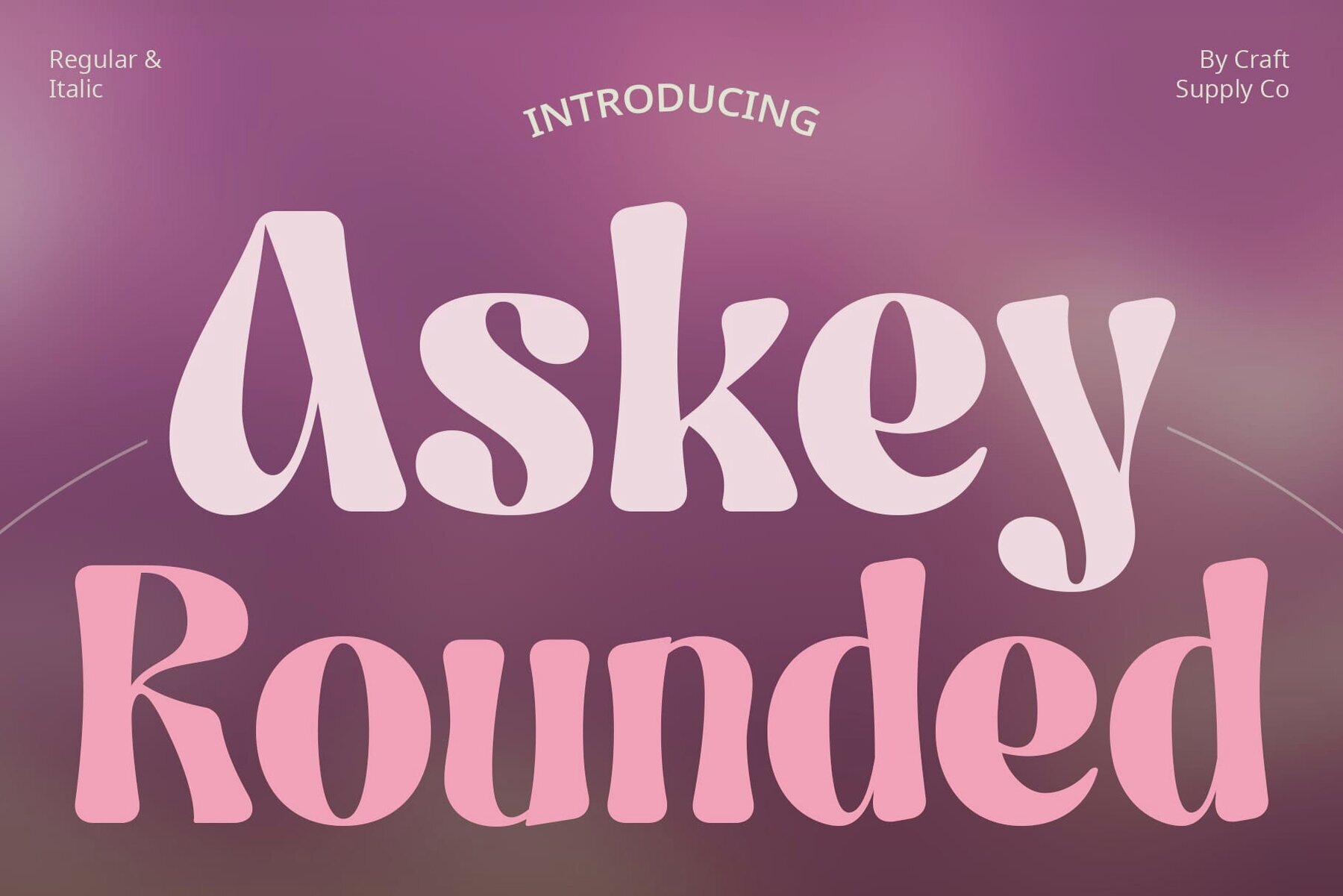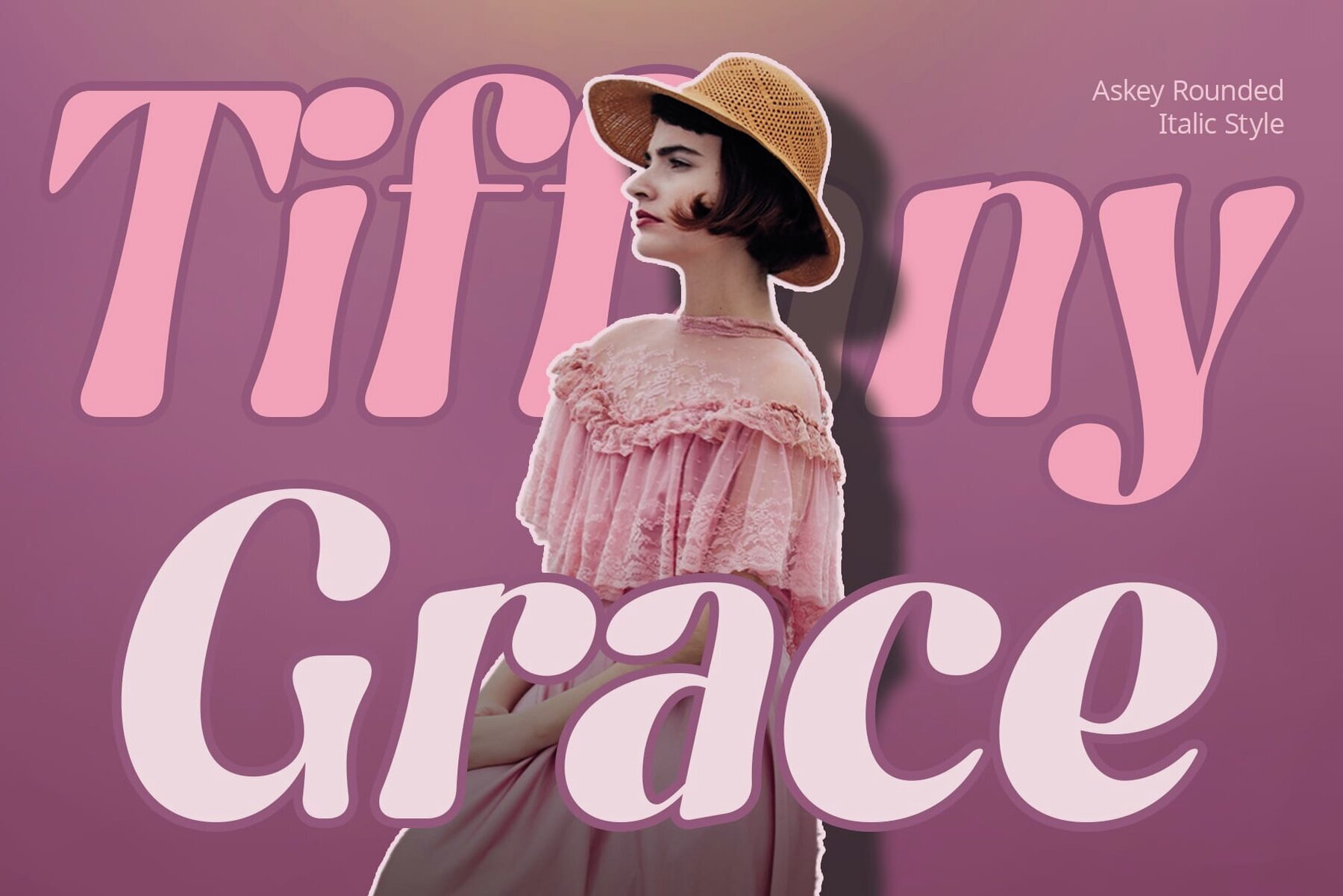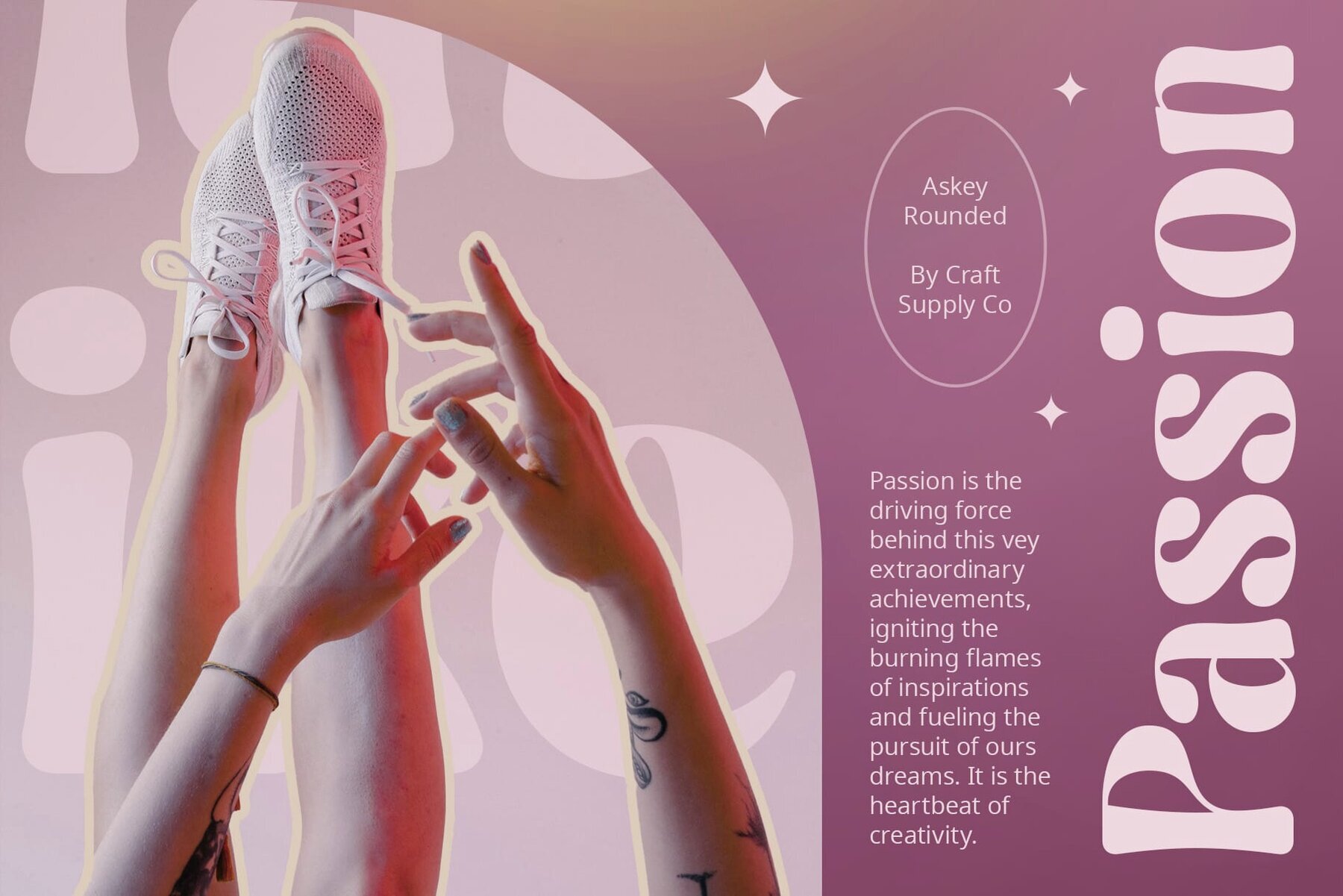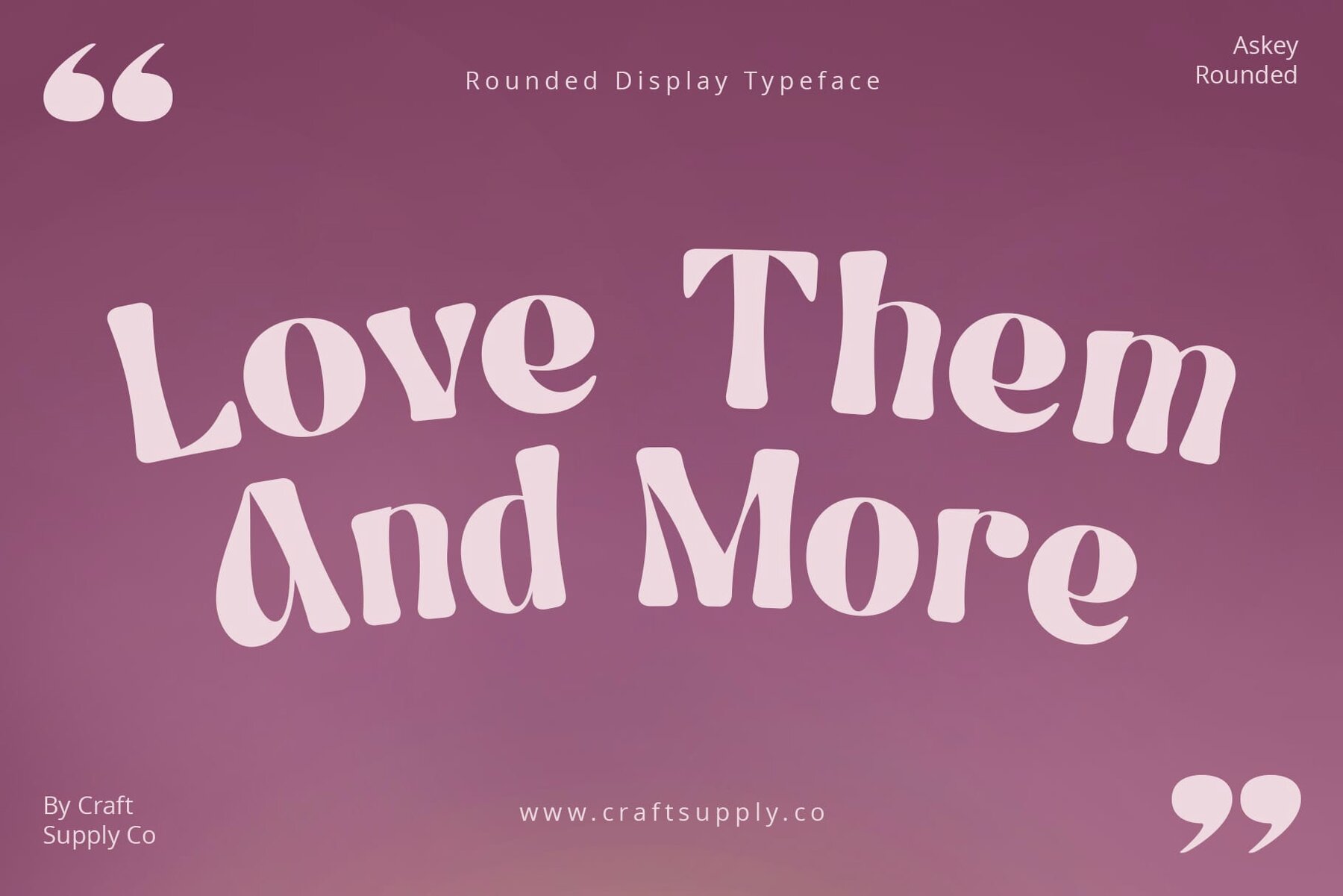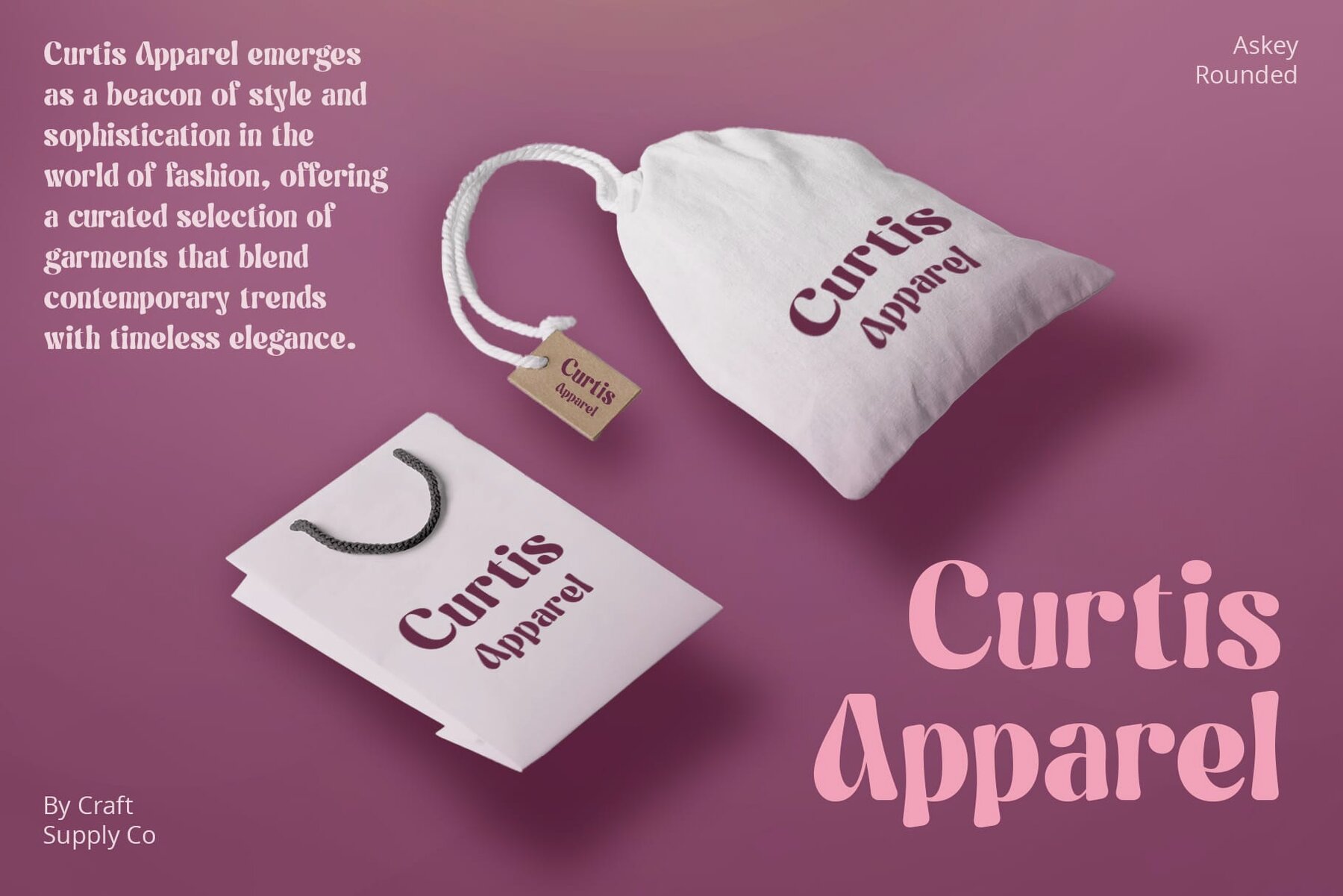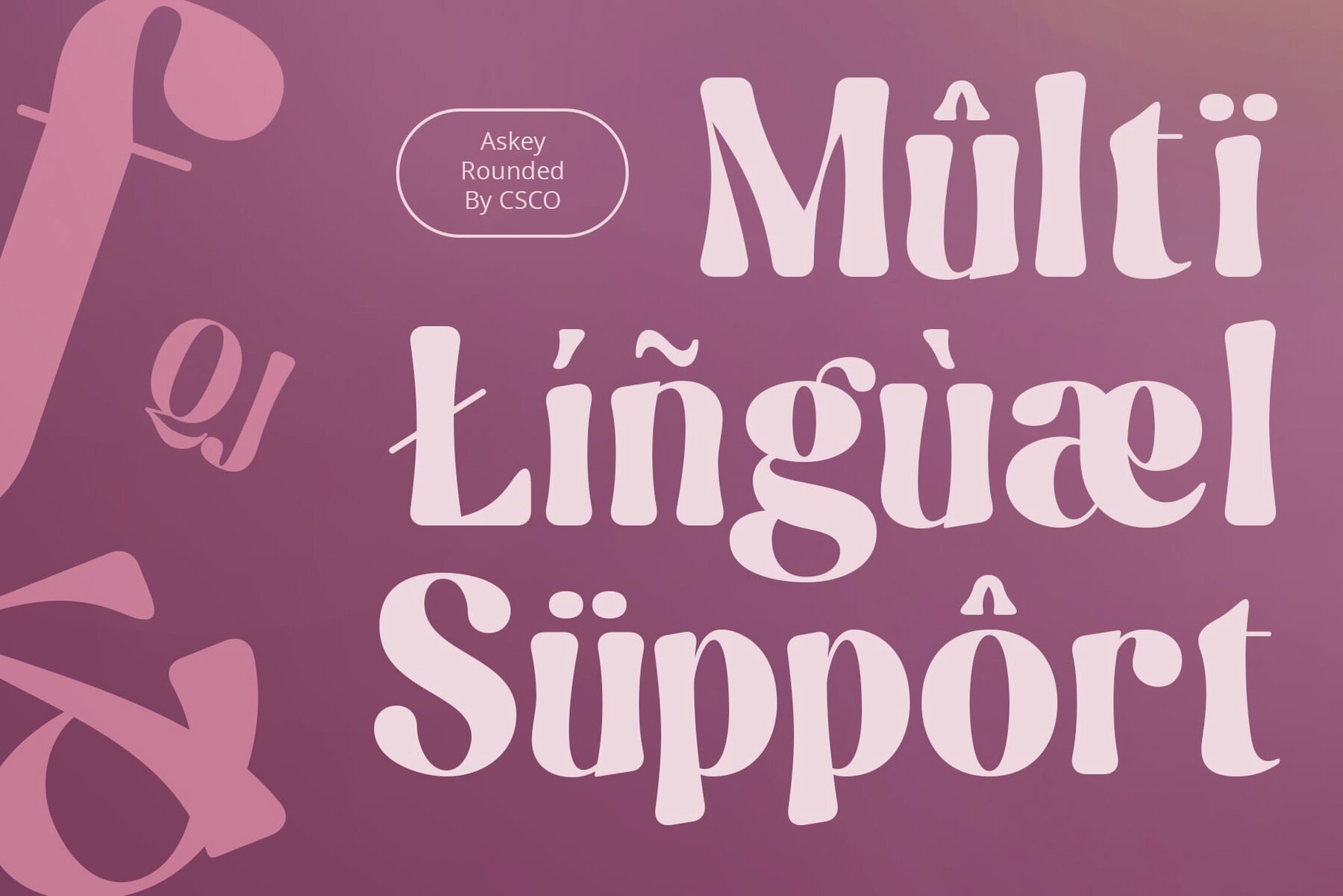
Askey Rounded Font
Askey Rounded by Craft Supply Co. is a distinctive sans serif font that captures the essence of retro style with its high-contrast design and funky shapes. This unique typeface is perfectly suited for projects that require a touch of nostalgia paired with bold visual impact. This font features a high contrast design, which enhances the clarity and readability of each character, making text stand out effectively on any background. The funky, retro-inspired shapes of Askey Rounded contribute to its unique charm, bringing a playful and memorable aesthetic to branding, advertising, and creative design. Askey Rounded is ideal for branding projects, poster designs, and any creative work where a strong, retro-inspired identity is desired.Askey Rounded: A Funky Retro Sans Serif with High Contrast
High Contrast Design
Funky Shape with Retro Vibes